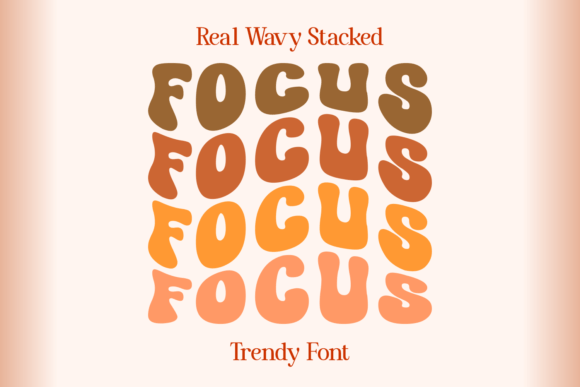
Wavynes Font
Wavynes is a fun font with wavy letters stacked on top of each other. It’s playful and easy to read, perfect for adding a touch of whimsy to your projects.